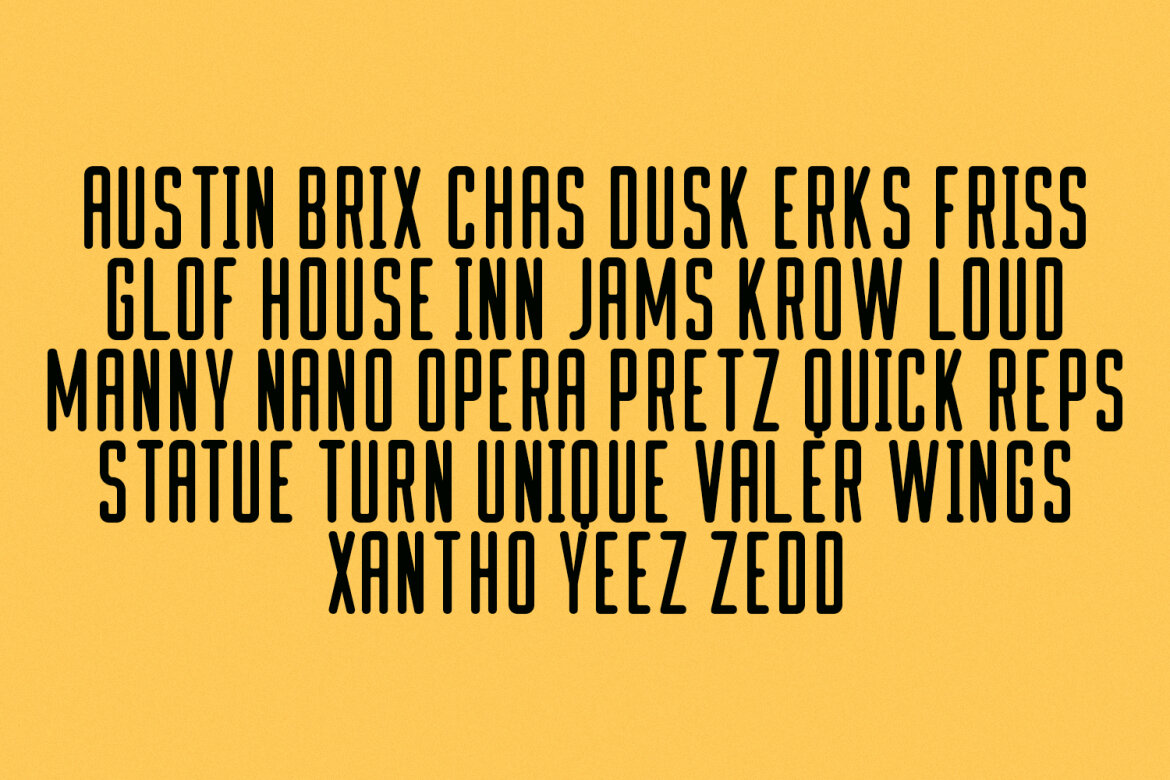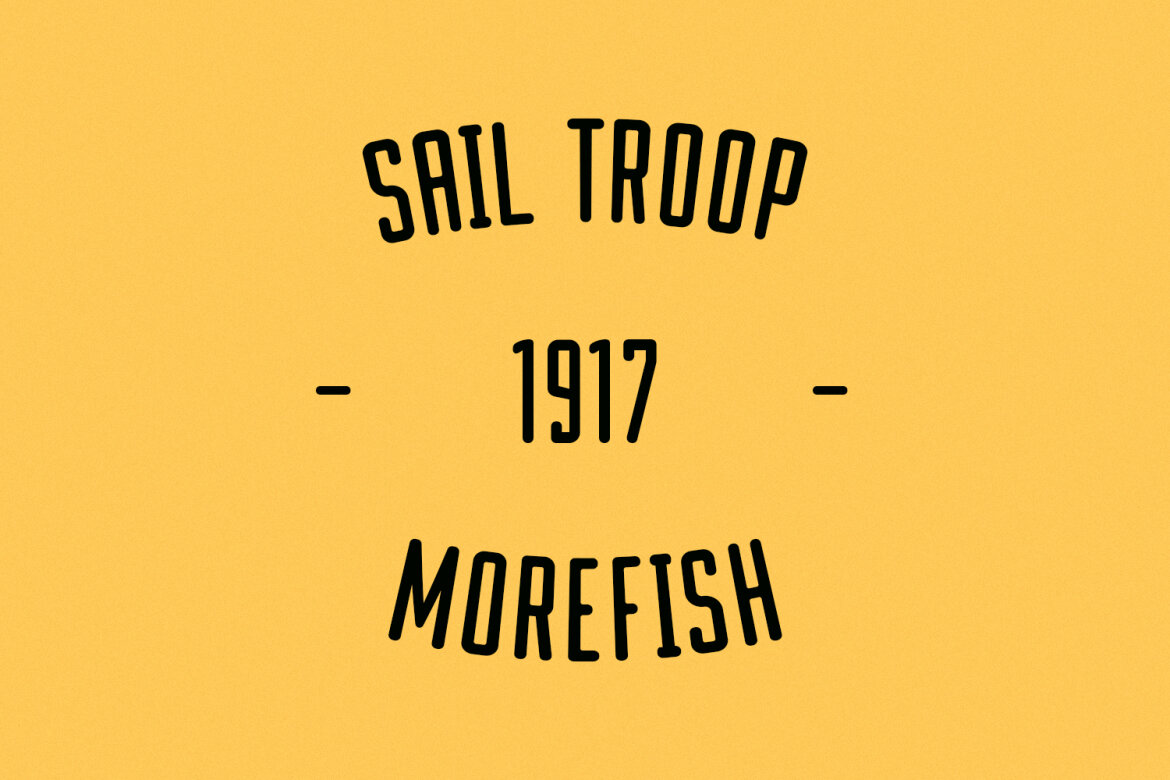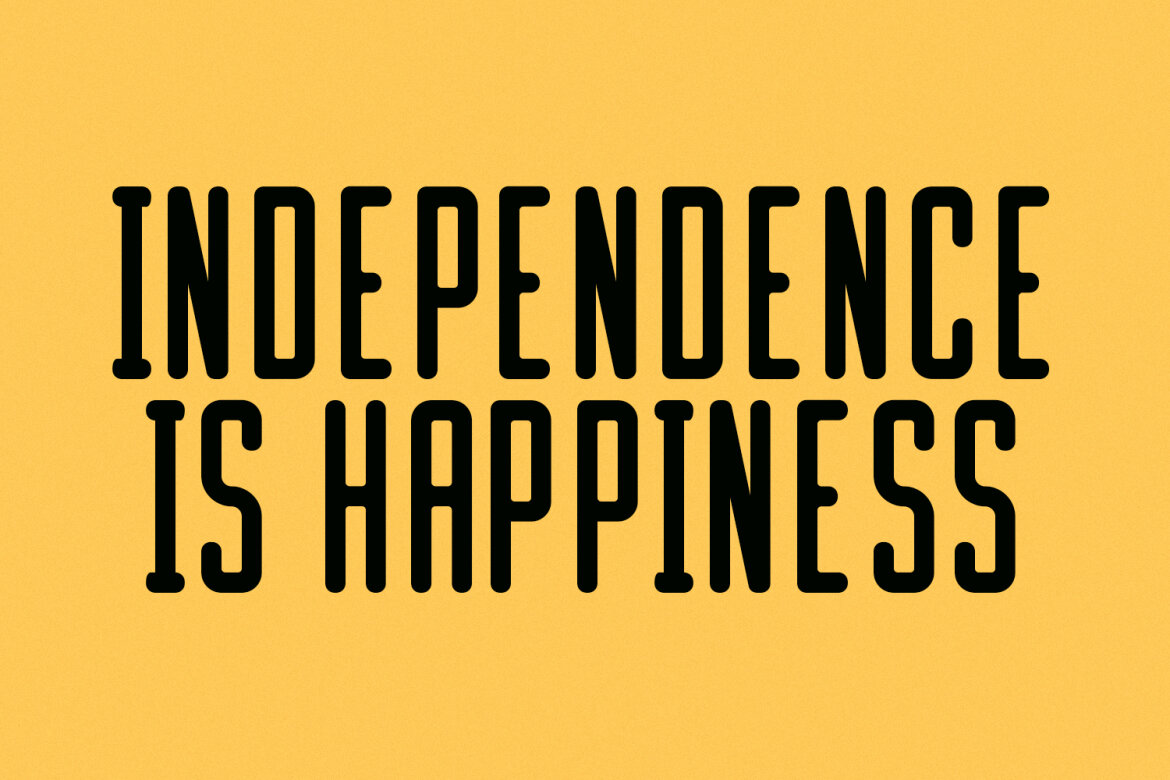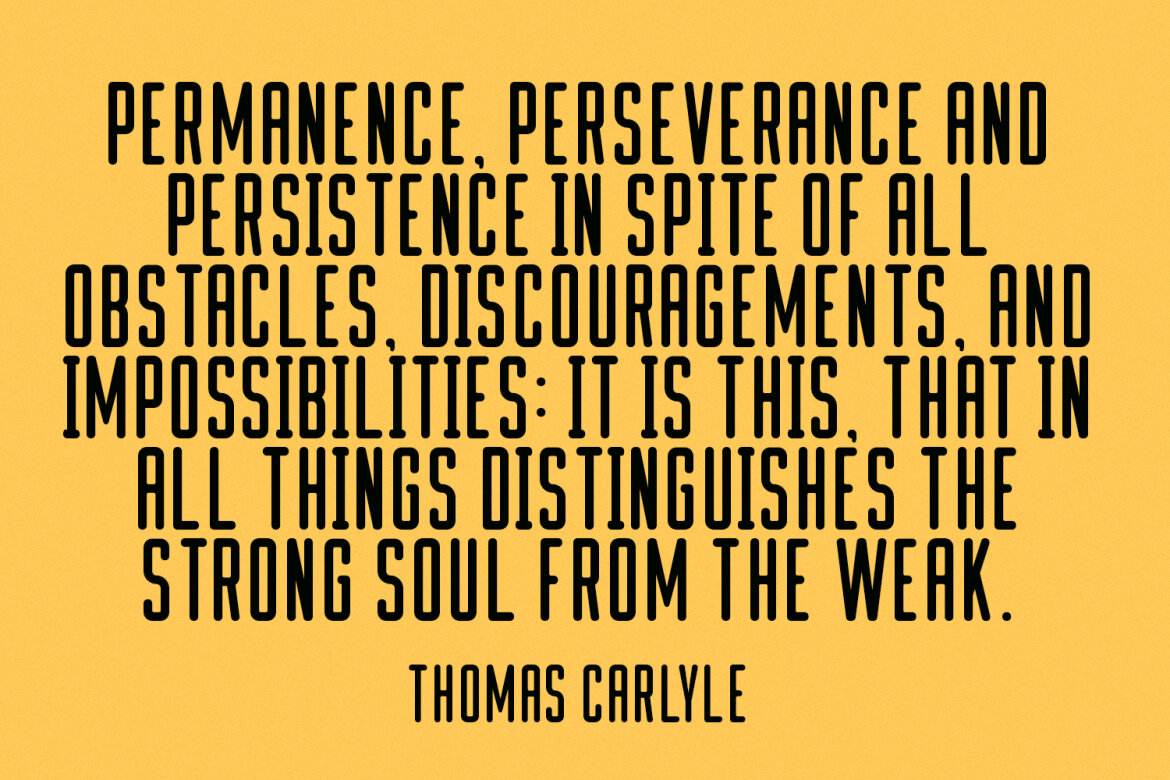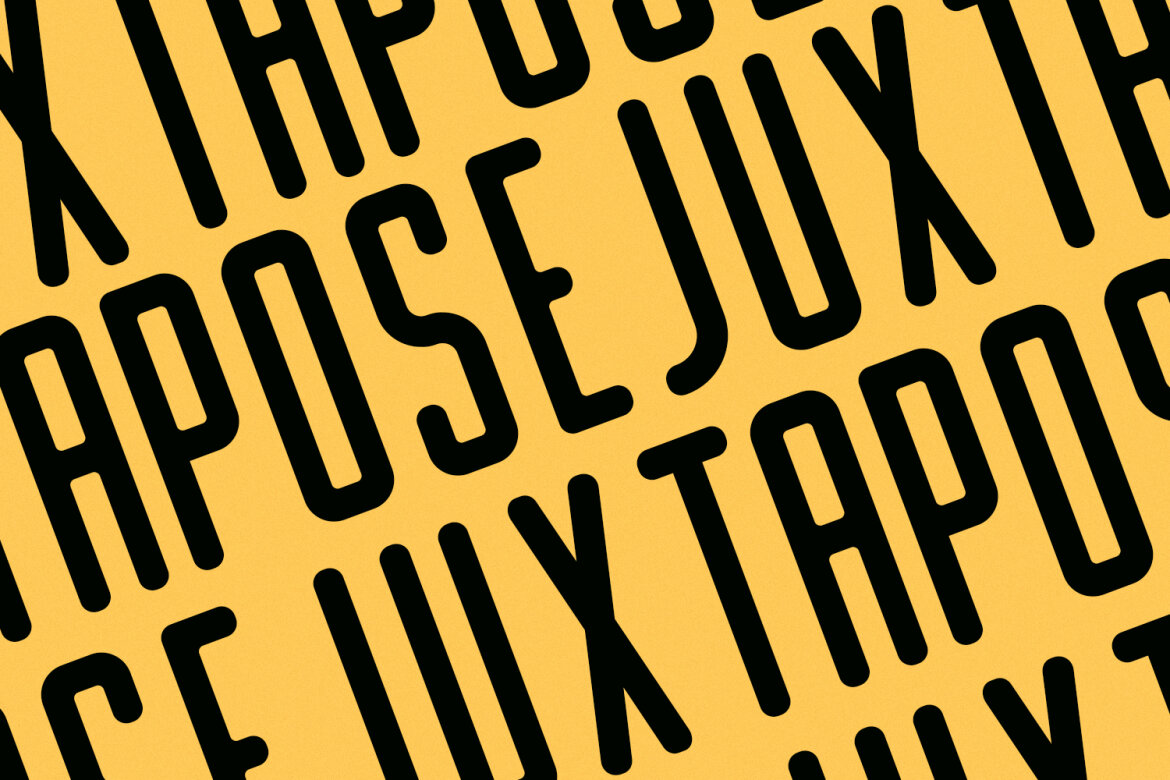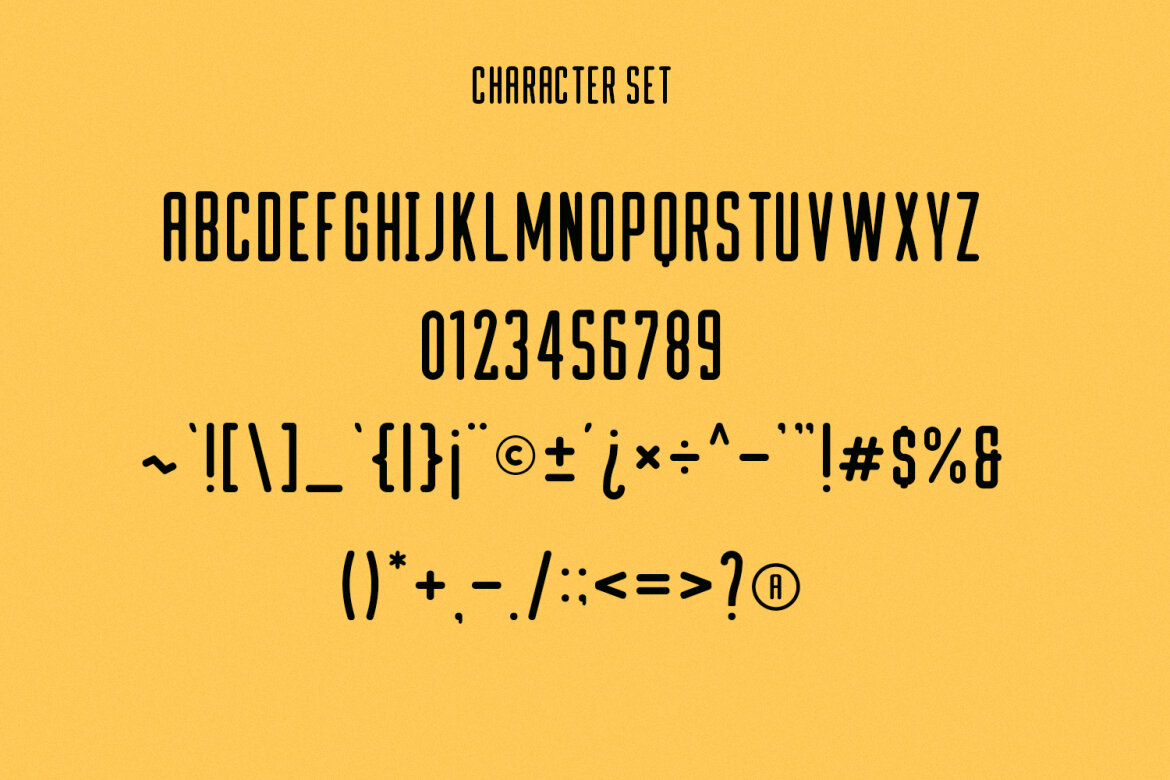
Alysse Sans FREE Font
Alysse
Alysse is a tech industrial genre sans display font. With regular condensed stroke, fun character with a bit of ligatures and alternates. To give you an extra creative work. Alysse font support multilingual more than 100+ language. This font is good for logo design, Social media, Movie Titles, Books Titles, a short text even a long text letter and good for your secondary text font with script or serif. Make a stunning work with Alysse font.